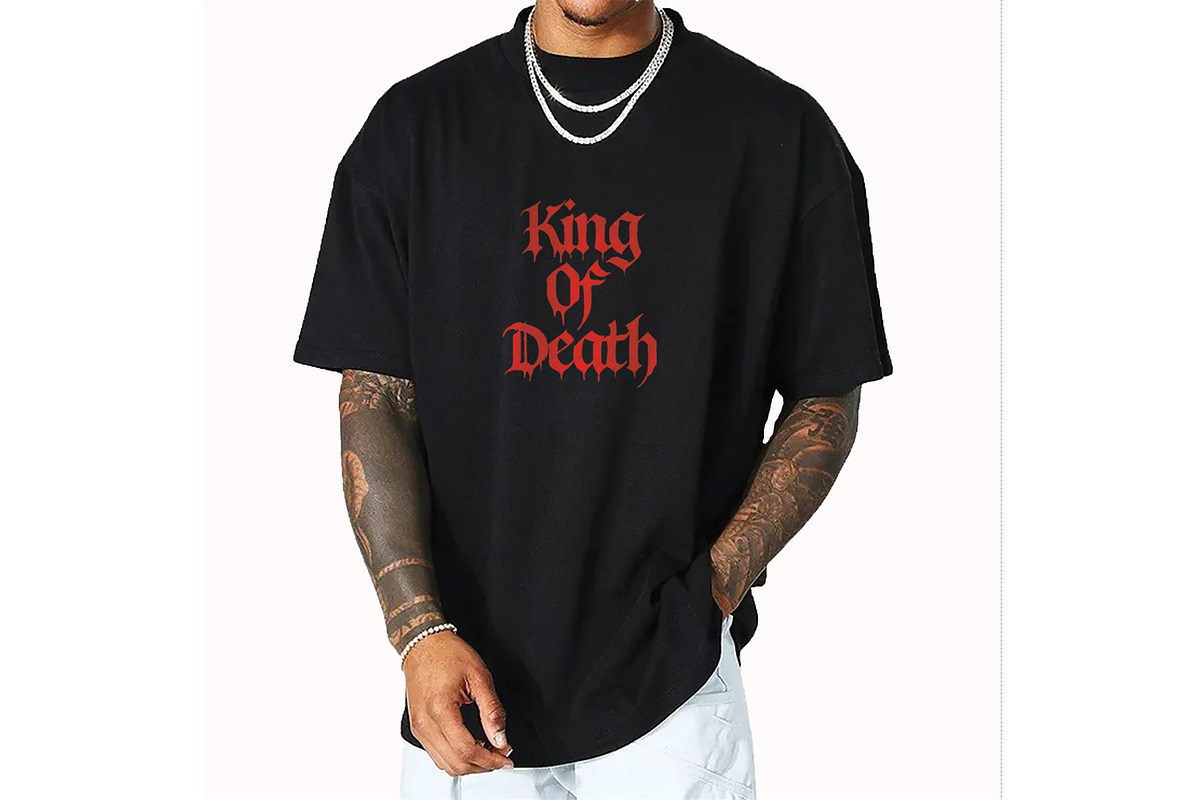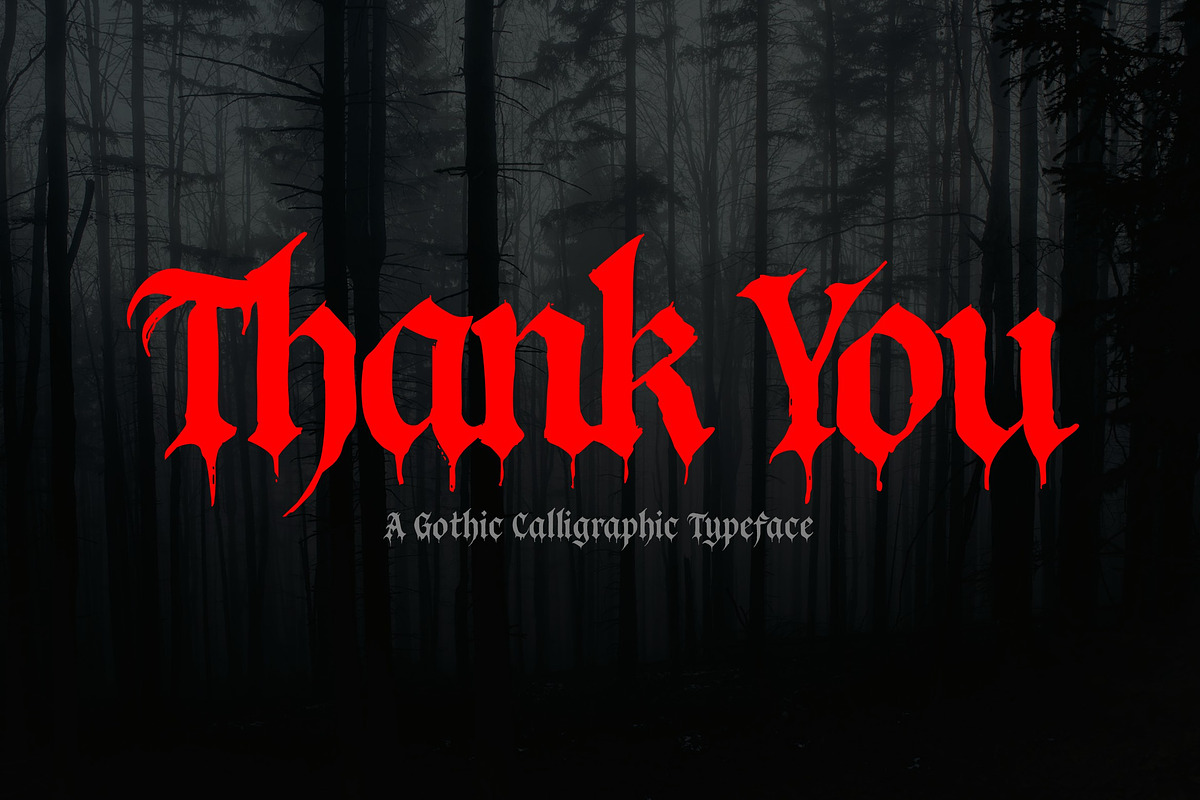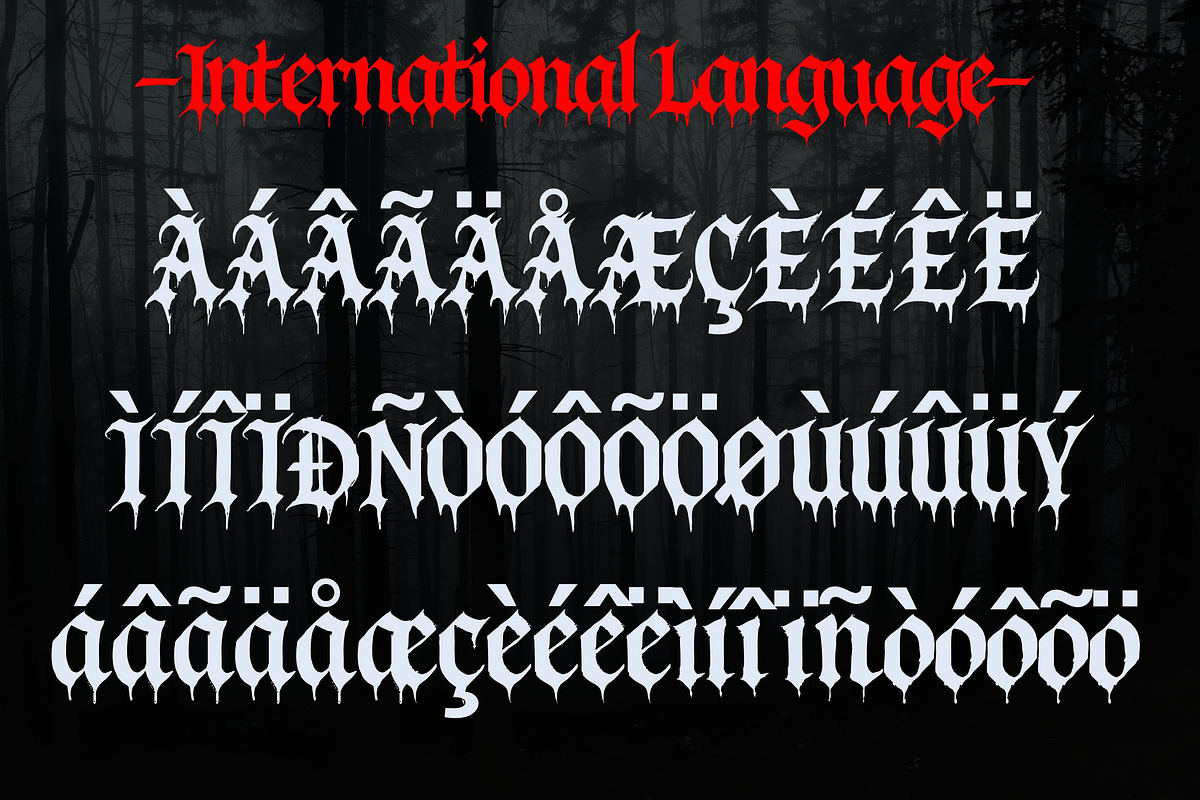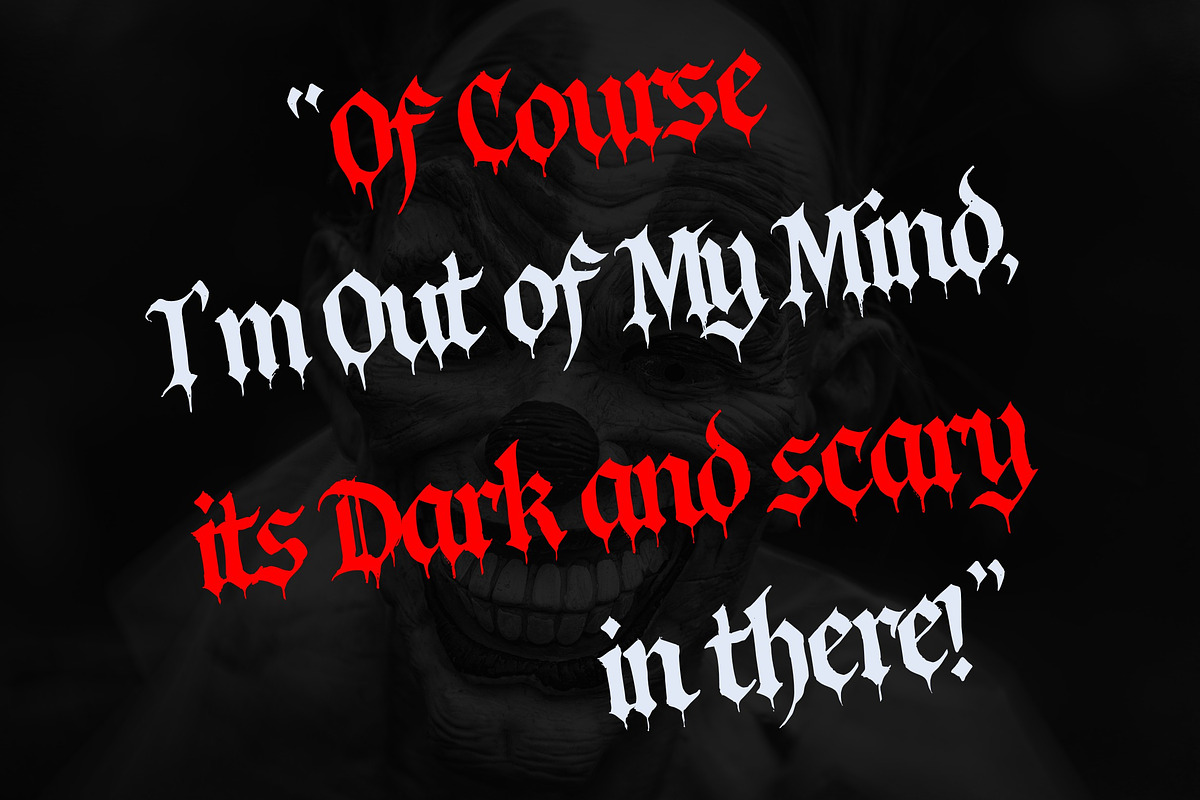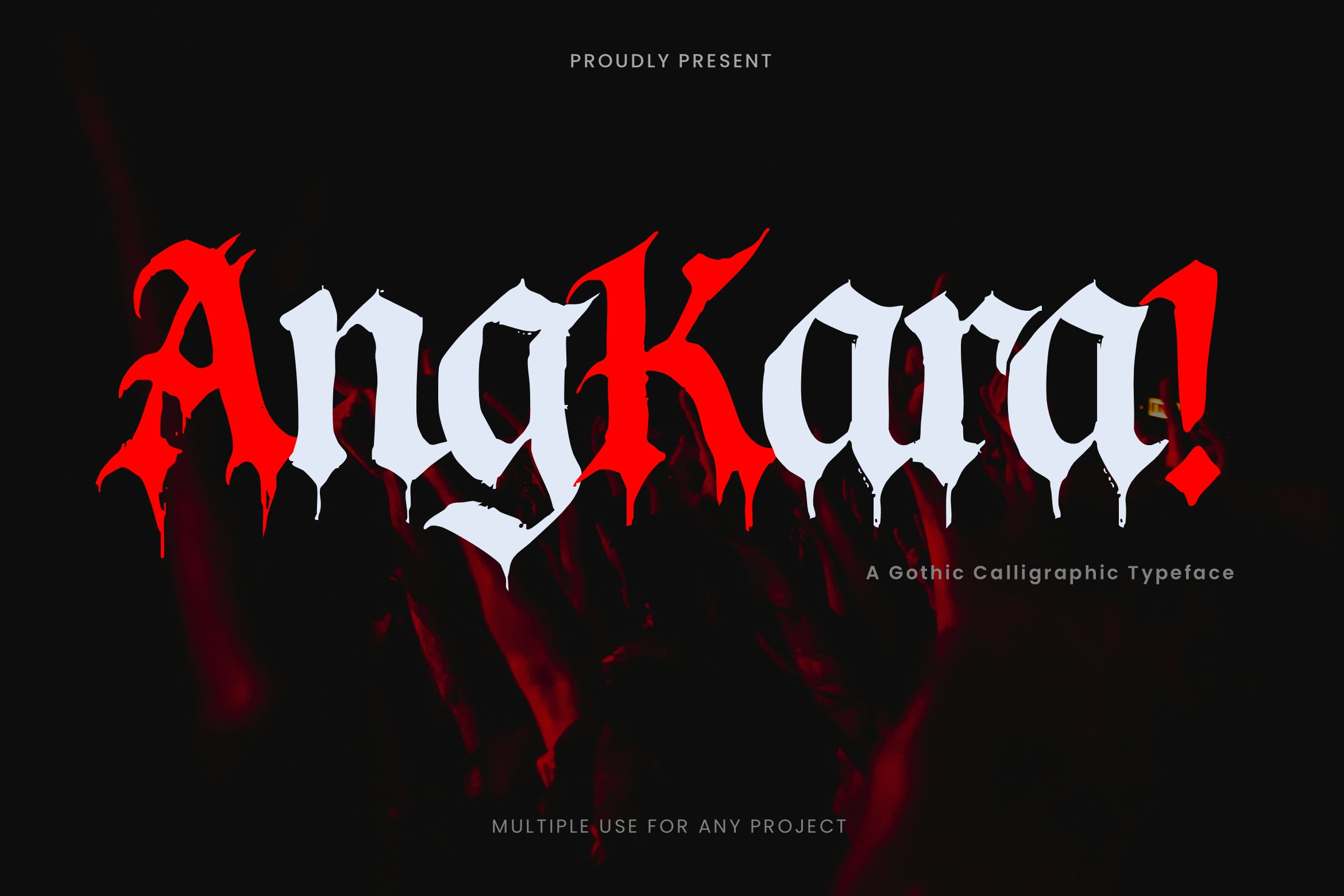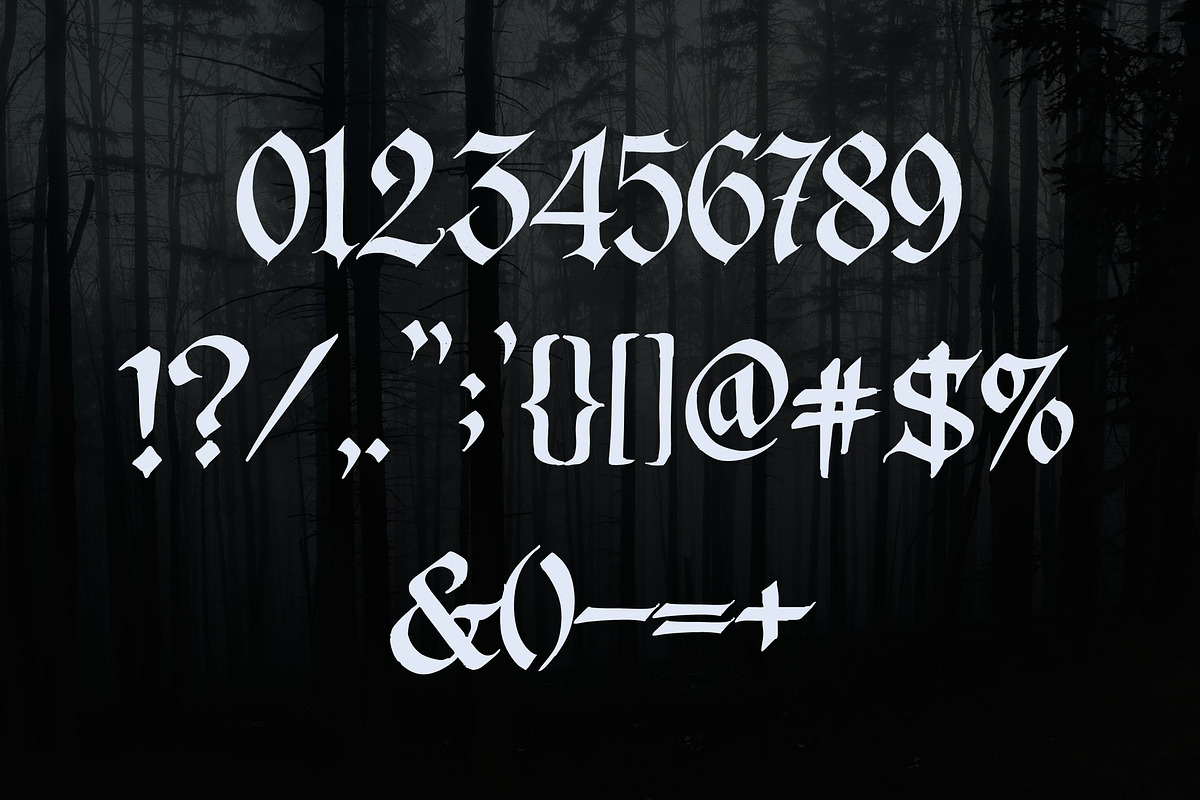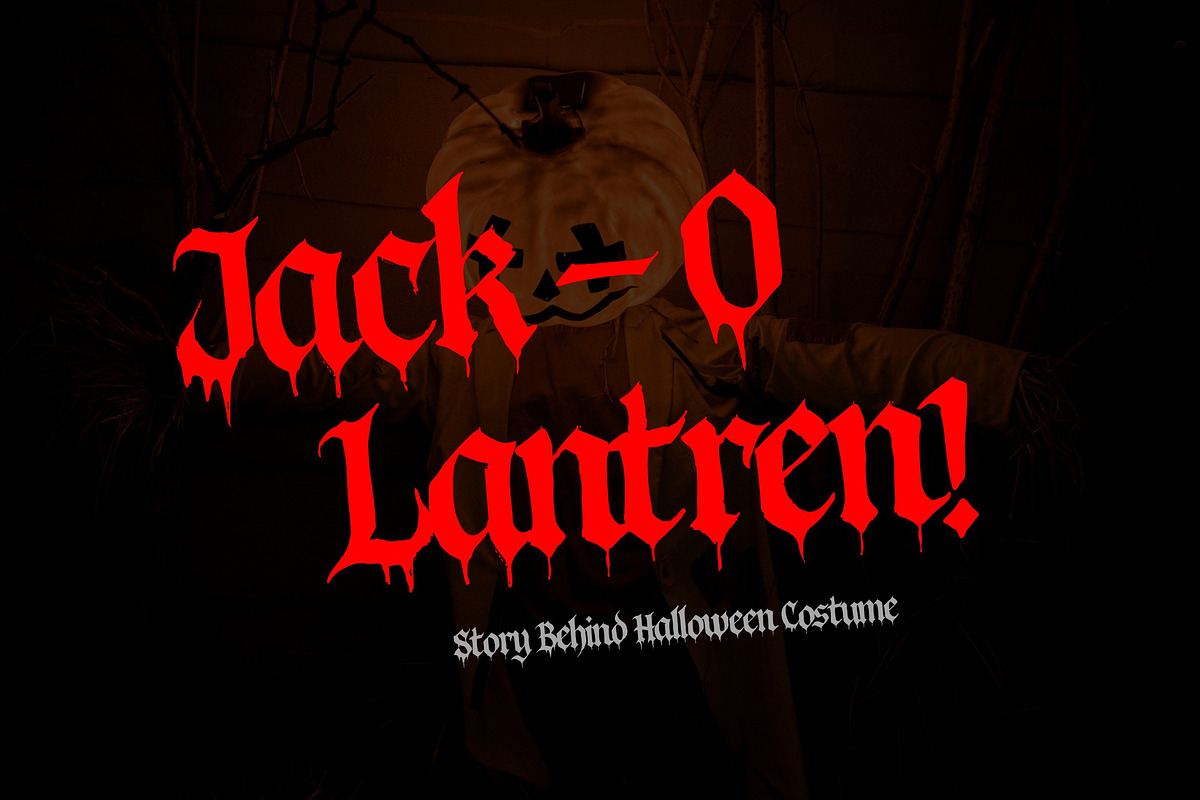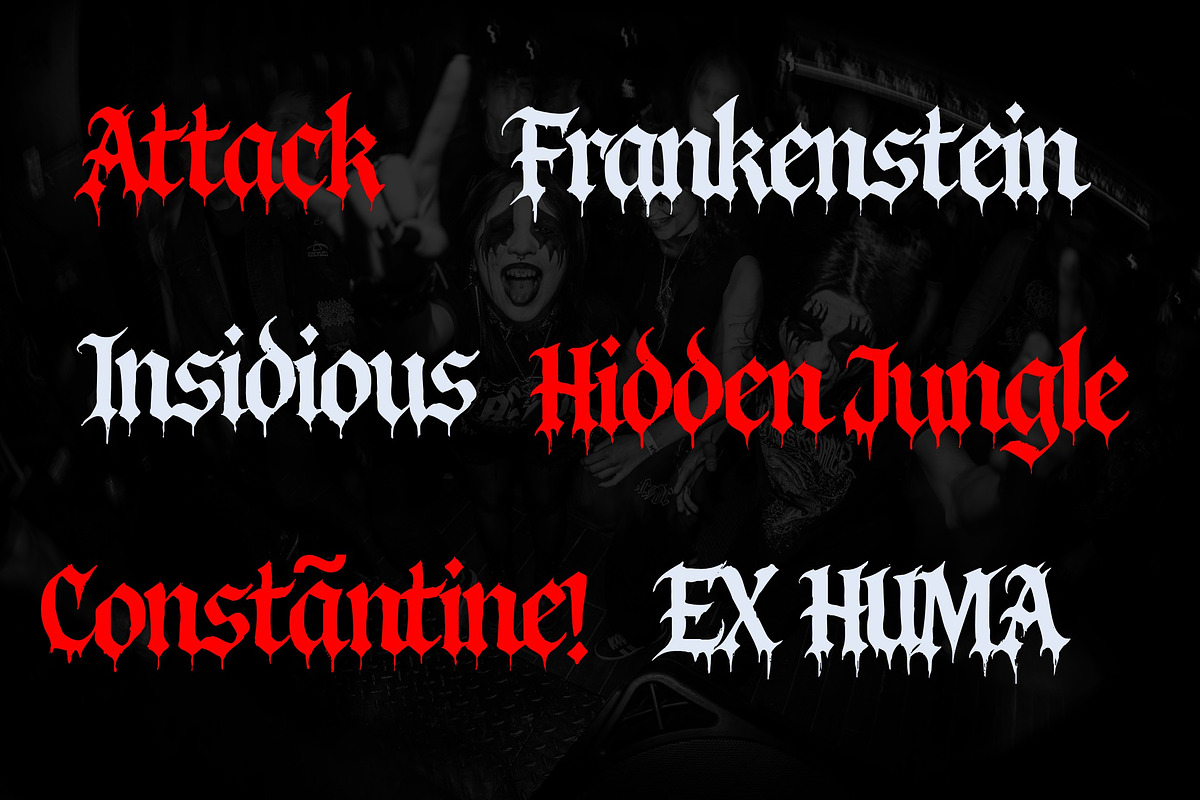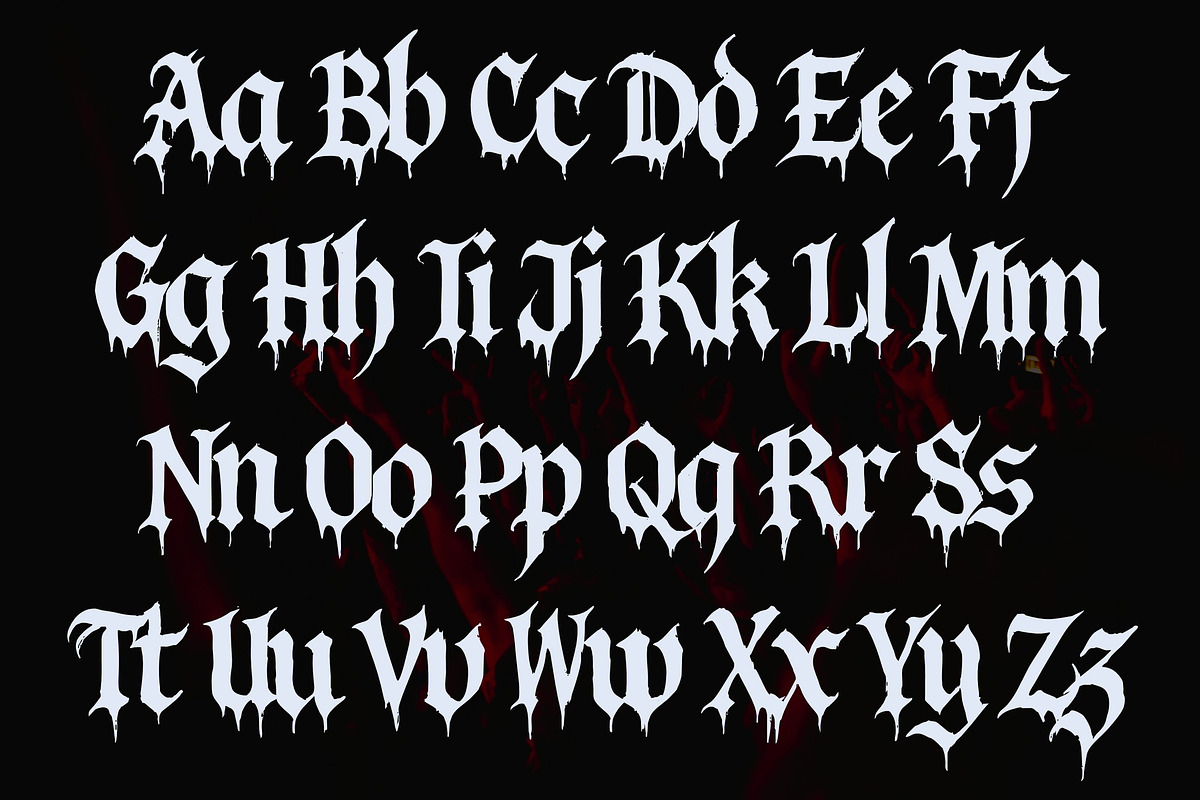
Angkara Calligraphic Gothic Font
Angkara a Gothic calligraphic typeface that blends sharp elegance with dark artistic flair. Designed for bold visuals, it’s perfect for luxury branding, metal band logos, dark fantasy posters, tattoos, and high-fashion editorials. With intricate strokes and dramatic swashes, Angkara delivers a powerful statement with every letter.
- 223 Glyps included Uppercase, Lowercase, Numeral, Punctuation, Multilingual international Language.